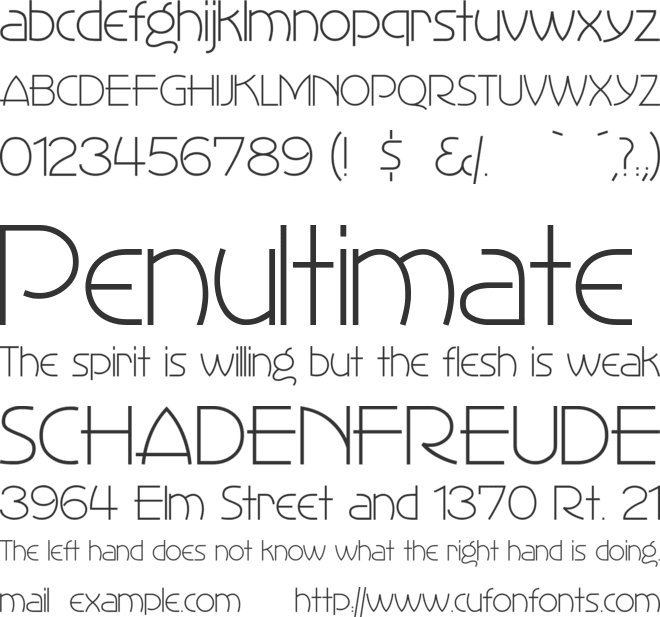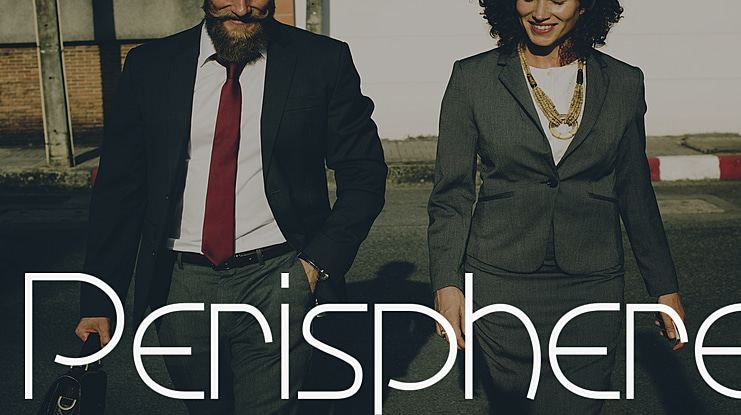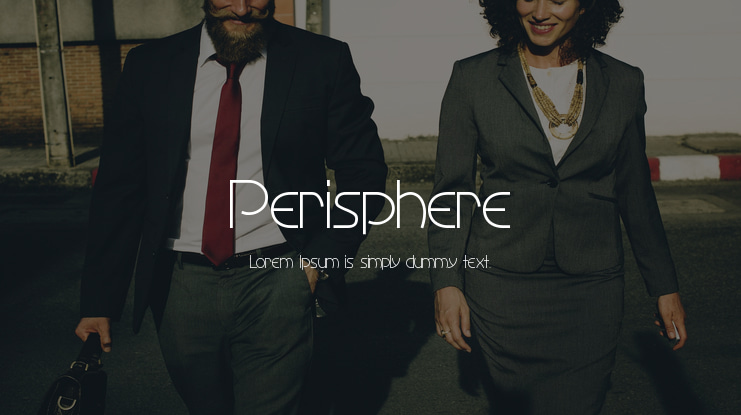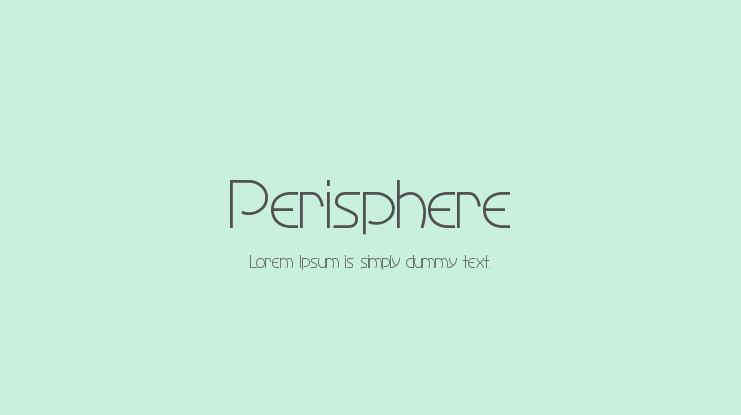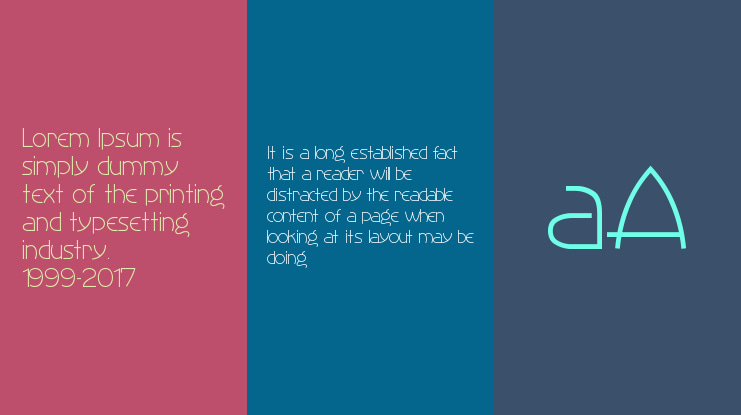
Perisphere Font
Here’s a reworking of the classic Deco font, Advertisers Gothic, named after one of the two symbols of the 1939 New York World’s Fair (the other symbol was the Trylon). This lightline version of the font is graceful, elegant, and has a large x-height.